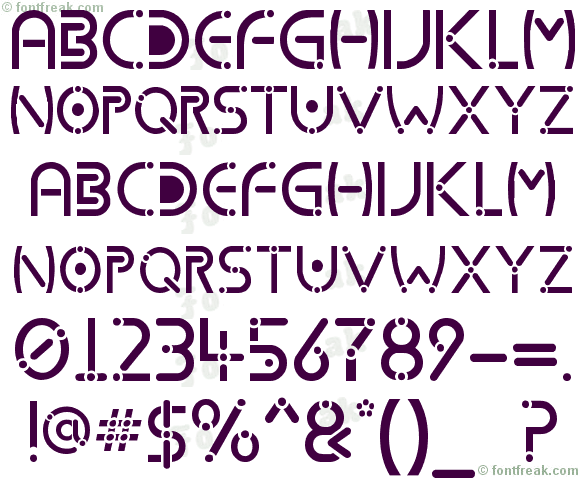
Kharnorric
About Kharnorric
Kharnorric by Gemfonts is a striking display font that combines modernity with a touch of whimsy. This freeware typeface showcases a unique blend of geometric shapes and playful elements, making it an ideal choice for projects that require a bold statement. The visual characteristics of Kharnorric include a medium stroke weight with balanced contrast that ensures readability while maintaining an engaging aesthetic. The letterforms feature distinctive circular accents and an overall structured appearance, giving the font a contemporary yet artistic flair.
Perfect for a variety of creative applications, Kharnorric excels in settings that call for eye-catching typography. Its standout qualities make it a fantastic choice for designing movie posters, where the playful yet sophisticated style can captivate audiences. Additionally, it works wonderfully for restaurant menus, providing a modern look that can enhance the dining experience. Graphic designers will find it suitable for branding materials, helping to establish a memorable identity for small businesses. Content creators can also leverage this font for social media graphics, ensuring their posts grab attention in crowded feeds.
The target audience for Kharnorric includes graphic designers, small business owners, and content creators looking to elevate their projects with a unique typeface. Its versatility and distinctive style make it an essential addition to any designer's toolkit. The Kharnorric font free download allows for easy access, encouraging exploration and experimentation. With its modern aesthetic and engaging visual appeal, Kharnorric stands out as a memorable choice for anyone seeking to make a lasting impression. Whether for professional or personal use, this font is sure to enhance any design project with its character and charm.